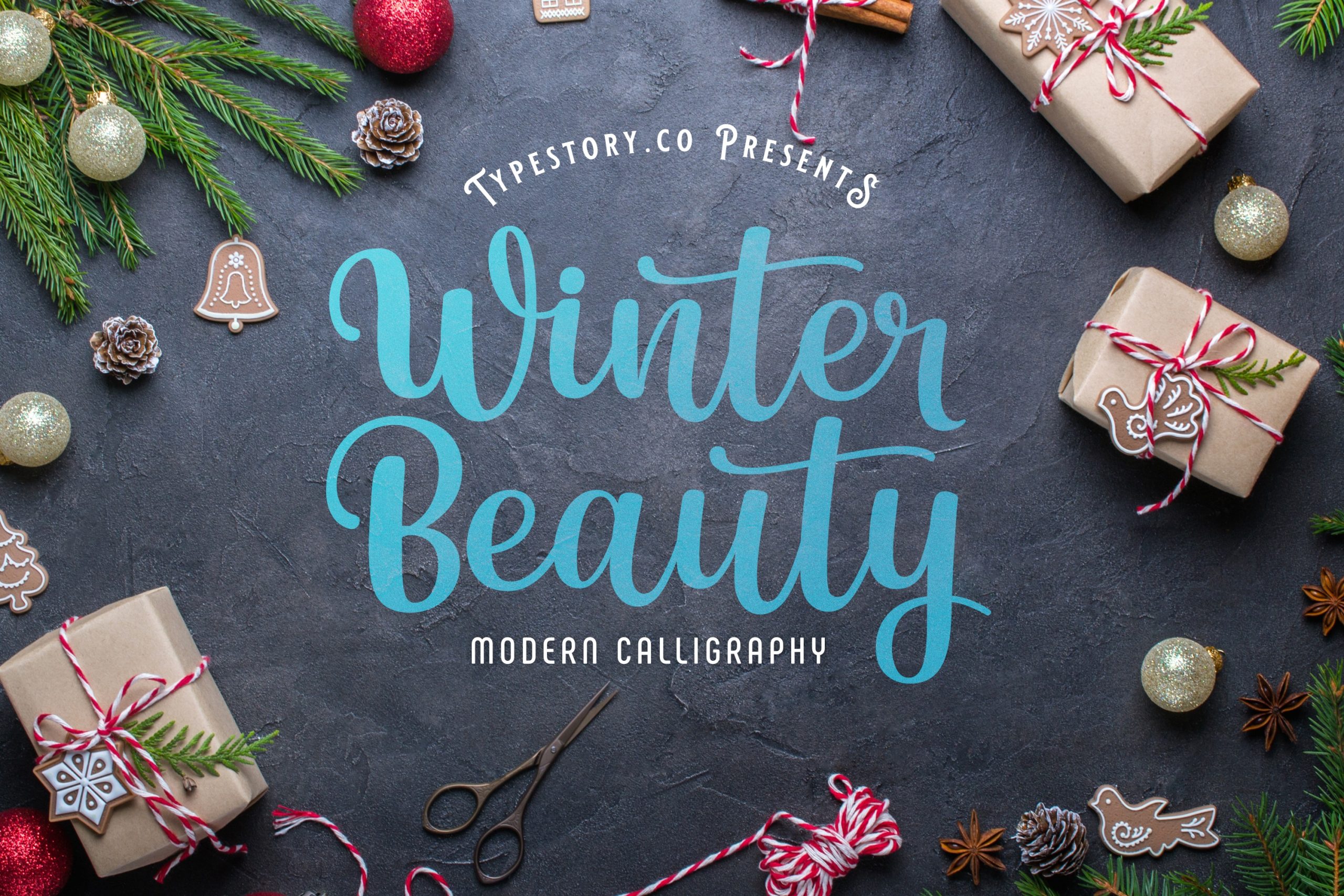
Winter Beauty Font
Winter Beauty Script Font is a sweet, fancy hand-lettered script. The playful rounded characters make it the perfect font for creating stunning calligraphy art. Add it to your designs and make them come alive! Suitable for any design needs : logo, branding, modern advertising design, logos, poster quote, book / cover Title, editorial design, website / blog, card, t-shirts, and any hand-lettered needs.
Winter Beauty Script Font